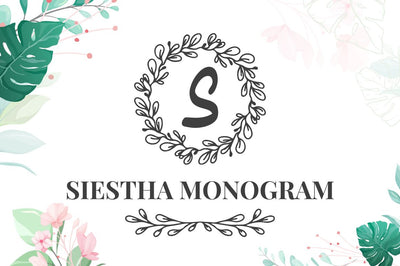
Siestha Monogram
Siestha Monogram is Flower Wreath monogram font, perfect for any wedding related designs for your special occasions, business designs, logos, branding, social media posts, and wedding cards.
Comes in with 2 styles.
Just simply change between uppercase and lowercase to see the different styles!